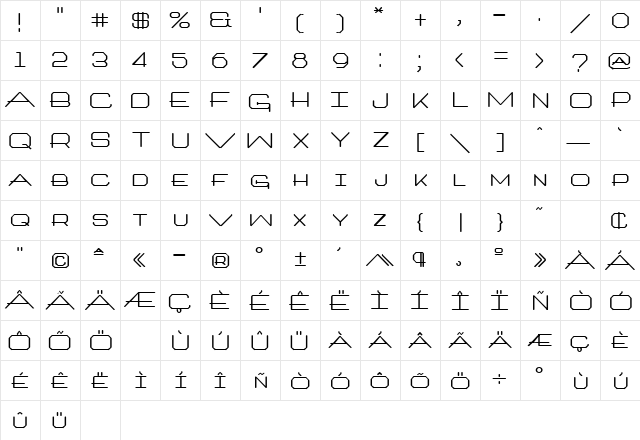
ADEMOE Regular
Design Context for ADEMOE Typeface
ADEMOE is a composed and adaptable typeface that performs quietly and consistently across a wide range of design contexts.
Pro Tip: Pair ADEMOE with a font of contrasting weight or personality to build a more expressive typographic hierarchy.